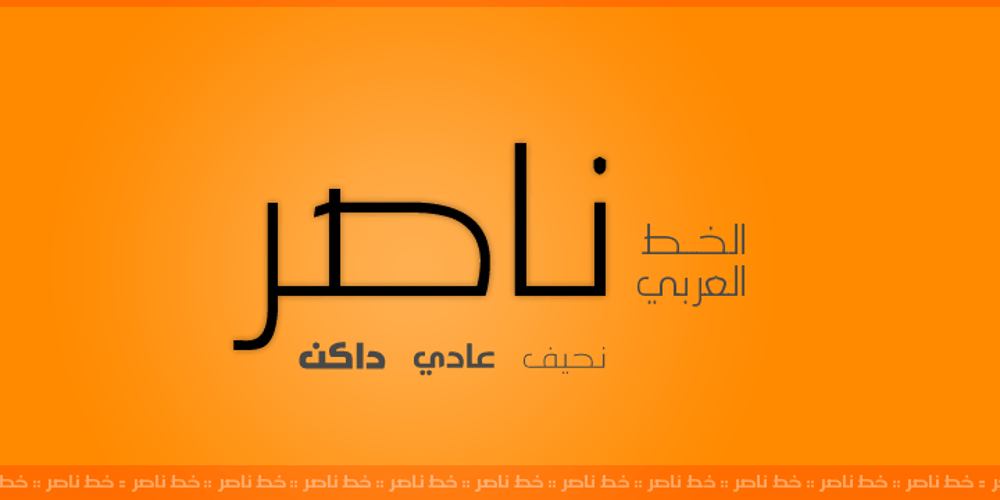
Nasser Font Family was designed by Eyad Al-Samman and published by Eyad Al-Samman. Nasser contains 3 styles and family package options. “Nasser” is a Kufic modern Arabic typeface. It is suitable for books’ covers, advertisement light boards, and titles in magazines and newspapers. It is very distinctive when used in black and white printout. It decorates colored pages and makes artworks more attractive. This font comes in three different weights. My father’s name is “Nasser”. Consequently, “Nasser” Typeface was designed for eternizing the memory of my late father. He was the person who taught me how to like arts, literature, and languages. Besides, my first cute child is named also “Nasser.” The main characteristic of “Nasser” Typeface is in its modern non-descender style for some of its Arabic characters such as “Sad”, “Seen”, “Sheen”, “Qaf” and others. The shape of the characters’ “dot”, “dots”, and “point” is innovative; a triangle with a semi-circle shape. “Nasser” Typeface is suitable for books’ covers, advertisement light boards, and titles in magazines and newspapers. Its characters’ modern Kufic styles give the typeface more distinction when it is used also in posters, greeting cards, covers, exhibitions’ signboards and external or internal walls of malls or metro’s exits and entrances. It can also be used in titles for Arabic news and advertisements appeared in different Arabic and foreign satellite channels.